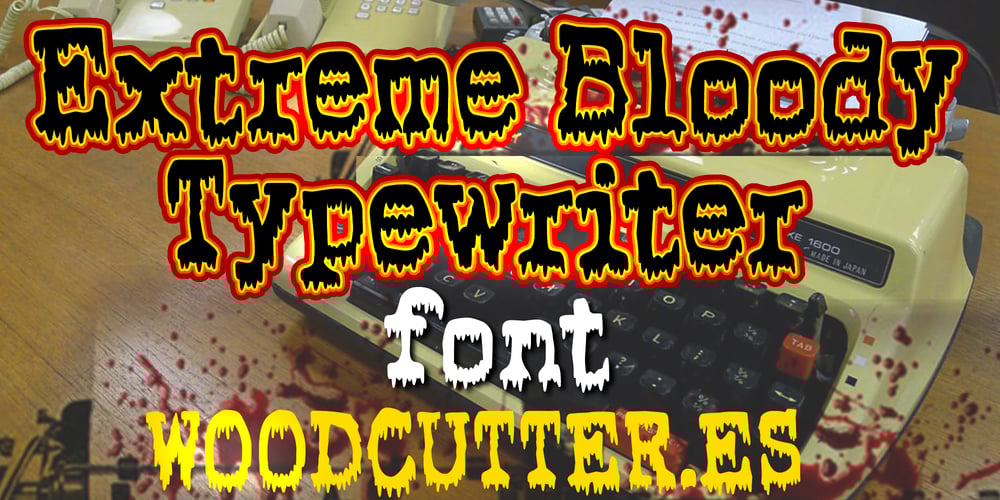
Extreme Bloody Typewriter
Extreme Bloody Typewriter font
Extreme Bloody Typewriter Font Family was designed by Jordi Manero and published by Woodcutter. Extreme Bloody Typewriter contains 1 styles and family package options. “Extreme Bloody Typewriter” is a font that combines the classic typewriter aesthetic with a touch of horror. Its letters appear blood-splattered, adding a unique and macabre horror style. Designed to look handwritten, this typeface is perfect for projects needing a chilling and sinister atmosphere. Ideal for horror movie titles, book covers, and spooky event posters, “Extreme Bloody Typewriter” will make your designs stand out with its originality and visual impact.